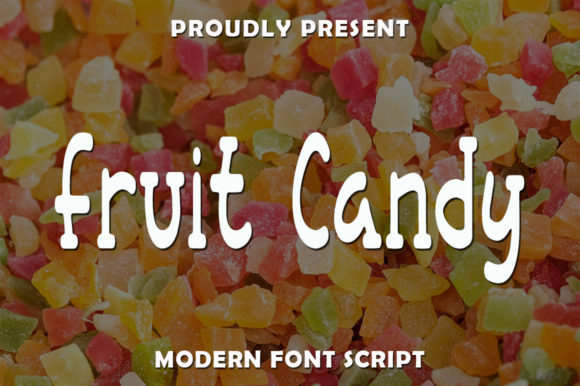
Meet Fruit Candy Font: A Playful Script to Add Magic to Your Designs.
Welcome to the world of Fruit Candy Font, a whimsical and charming handwritten font that captures the essence of childhood dreams. Get ready to add a dash of playfulness and joy to your creative projects with this remarkable script font.
With its easy-flowing strokes and unique character, Fruit Candy Font is a perfect pick for any project related to children. Picture this: enchanting invitations for birthday parties, adorable designs for baby showers, and eye-catching posters for kids' events. The possibilities are endless!
If you've been searching for a font that exudes happiness and cheer, look no further. Fruit Candy Font, with its sweet and juicy vibe, is sure to bring a smile to your face and charm your audience.
And here's an exciting bonus: Fruit Candy Font pairs exceptionally well with soft, pastel colors. Just imagine the sheer magic when you combine this font with shades of pink, lavender, and baby blue. It's a recipe for visual delight that will leave your designs bursting with charm.